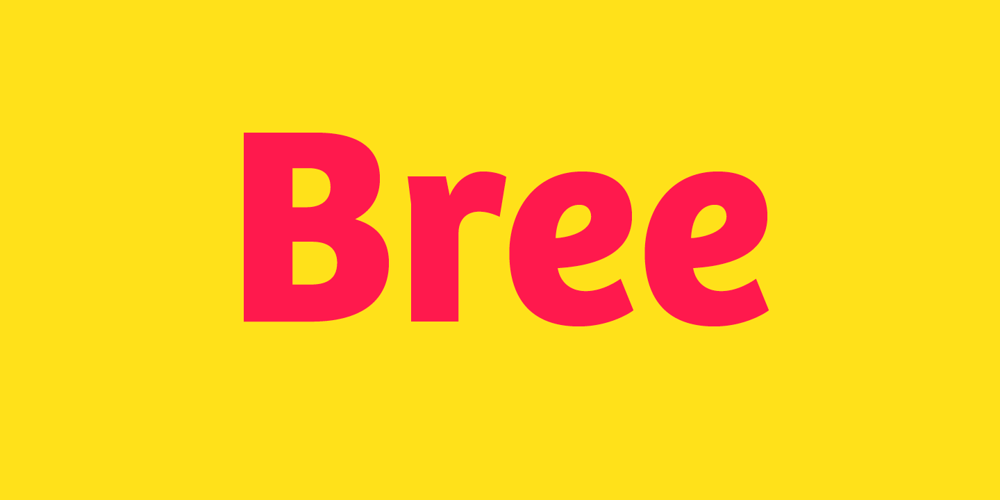
Bree
Bree font
Bree Font Family was designed by Veronika Burian, José Scaglione and published by TypeTogether. Bree contains 16 styles and family package options. The Bree font family is a spry sans serif by Veronika Burian and José Scaglione that delivers a spirited look and feel for branding and headline usage. As an upright italic, Bree shows a pleasant mix of rather unobtrusive capitals with more vivid lowercase letters, giving text a lively appearance. Bree is clearly influenced by handwriting. As such, some of its most characteristic features are the single-story ‘a’, the cursive ‘e’, the outstroke curves of ‘v’ and ‘w’, the flourished ‘Q’, and the fluid shapes of ‘g’, ‘y’, and ‘z’. Alternates of these letters are available when a more neutral look is desired. Bree has a touch of cheekiness, a wide stance for each character, and an extra-large x-height. All this adds up to a big personality, so even when set in small text there is no skimming past the words Bree voices.In 2019, the Bree font family got a huge update. A few shapes were updated or added (the ‘k’ and German capital ‘ß’), two entirely new weights were added (Book and Book Italic), and spacing was perfected. More than that, Vietnamese support was added to Bree Latin, and the Bree Greek and Bree Cyrillic scripts were designed from scratch to parallel the Latin’s tone. Additionally, Bree was designed in variable font format for those who want complete control over the font’s appearance while simultaneously saving digital weight in the form of kilobytes and megabytes. Bree is in the perfect position for the next digital revolution.The complete Bree font family, along with our entire catalogue, has been optimised for today’s varied screen uses. Bree has been chosen for such wide-ranging uses as Breast Cancer Awareness Month in the US, the branding for the country of Peru, and numerous layouts including mobile apps, magazines, newspapers, and books.Awards– Tipos Latinos exhibition 2008 – Several best-of-the-year typeface lists of 2008MyFonts Top 10 Fonts of 2008Smashing Magazine: 60 Brilliant Typefaces For Corporate Designhttps://www.smashingmagazine.com/2008/03/60-brilliant-typefaces-for-corporate-design/Die besten Schriften 2008http://www.fontwerk.com/619/die-besten-schriften-2008/– Selected for Typographica’s Best Typefaces of 2008– Won Bronze for Original Typeface in the 2009 European Design Awards